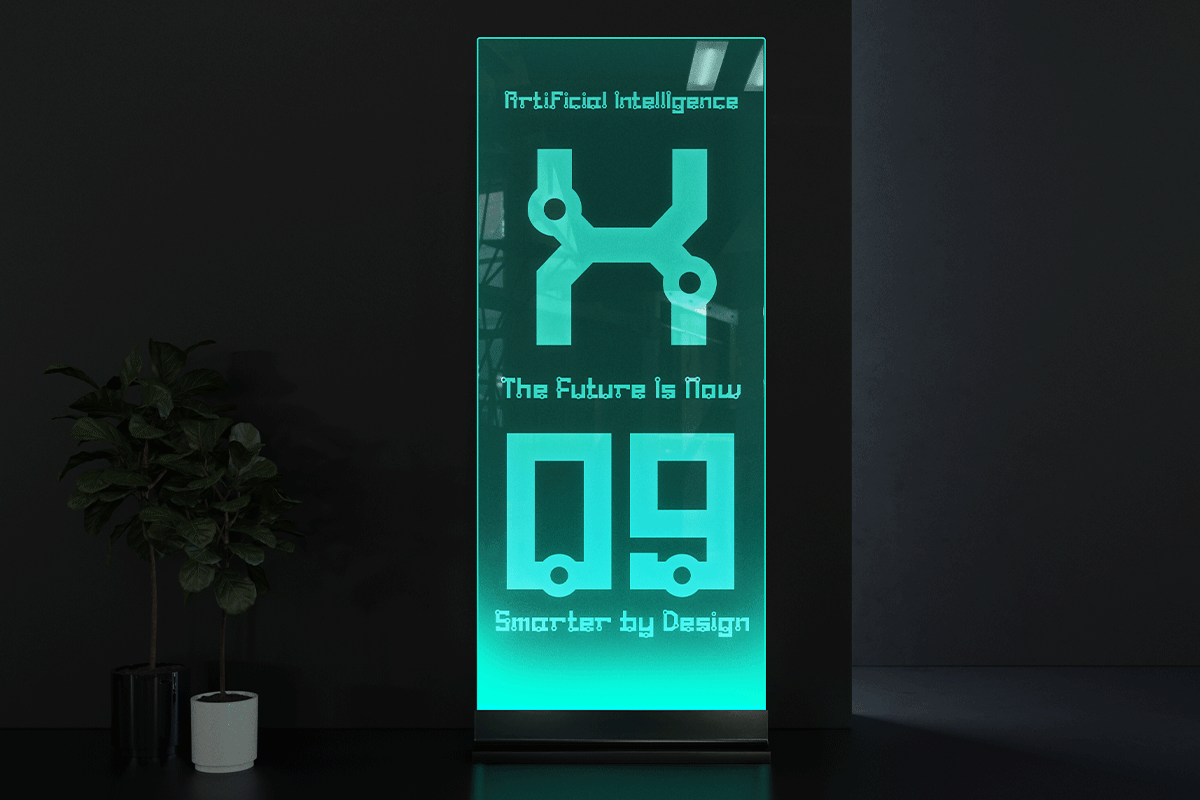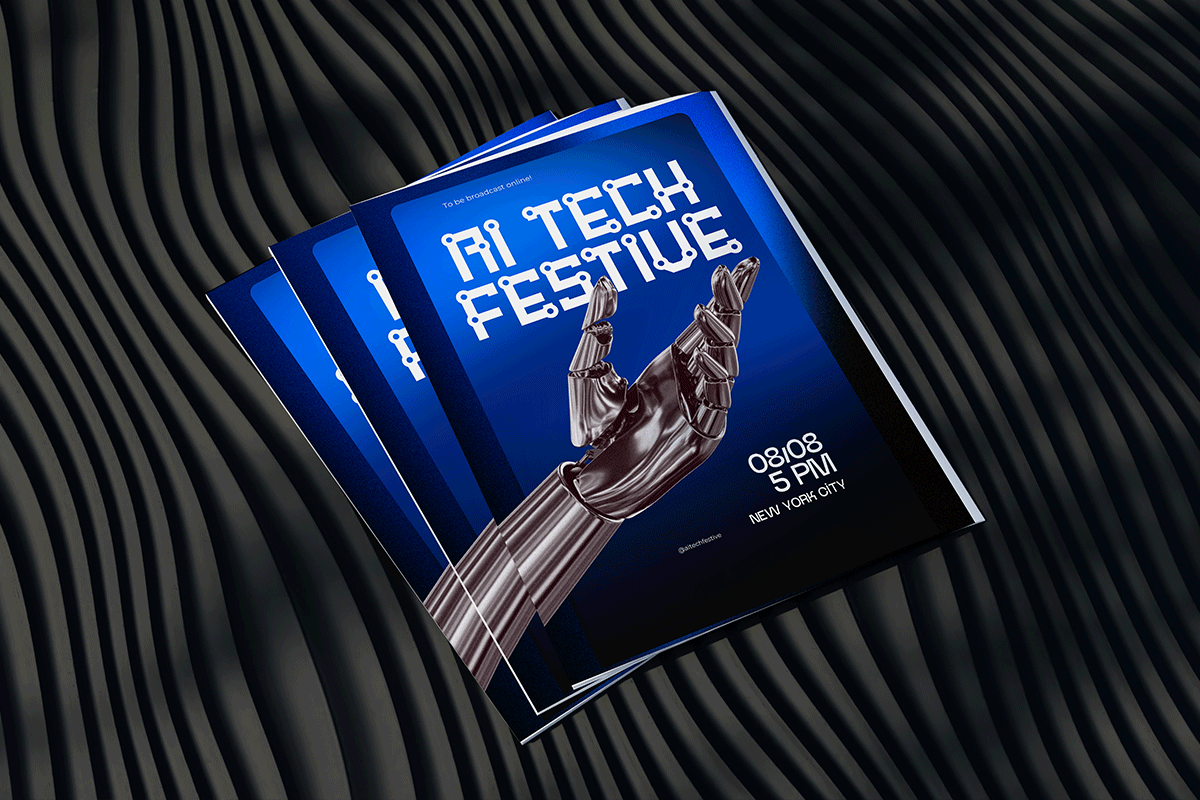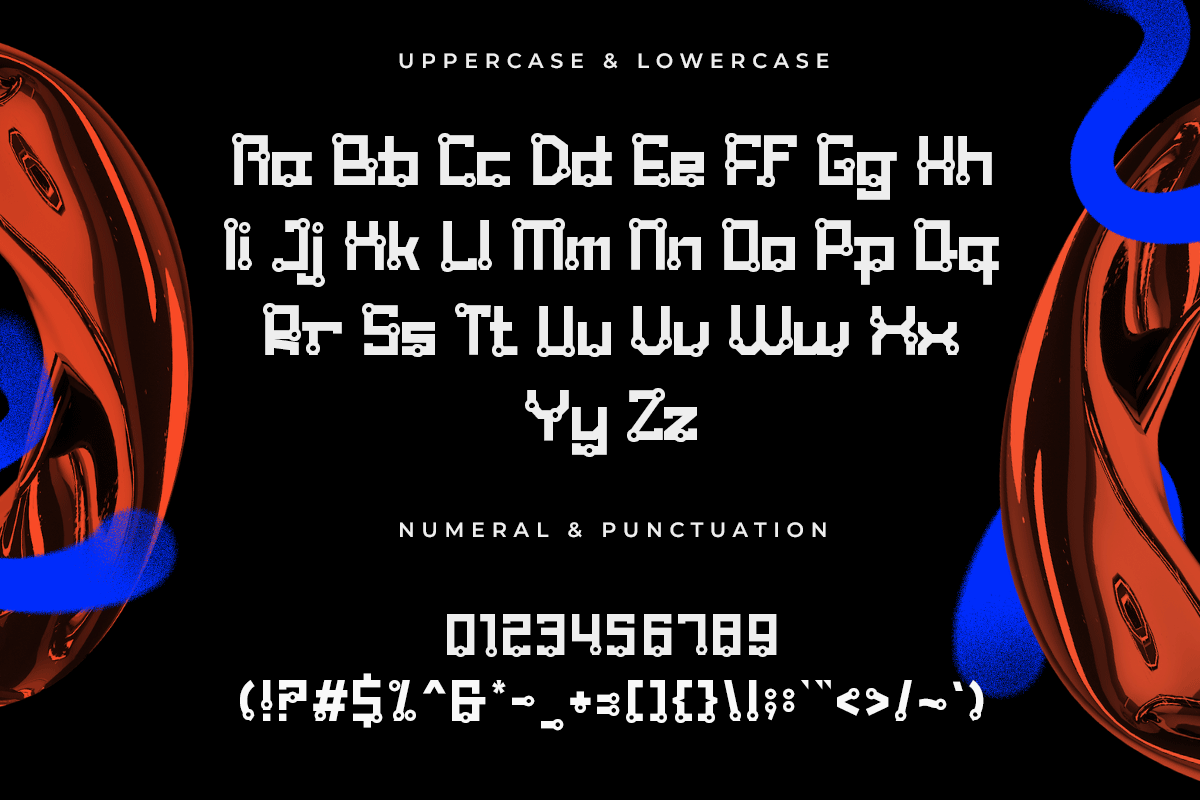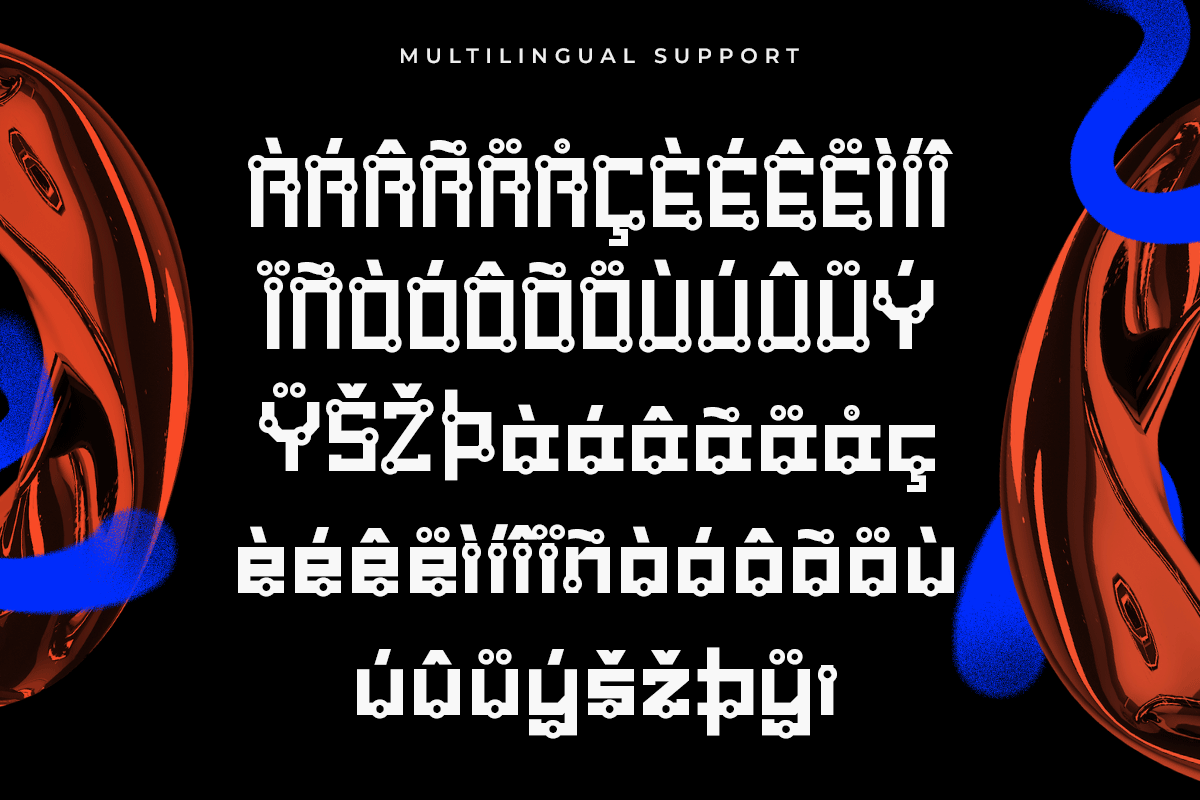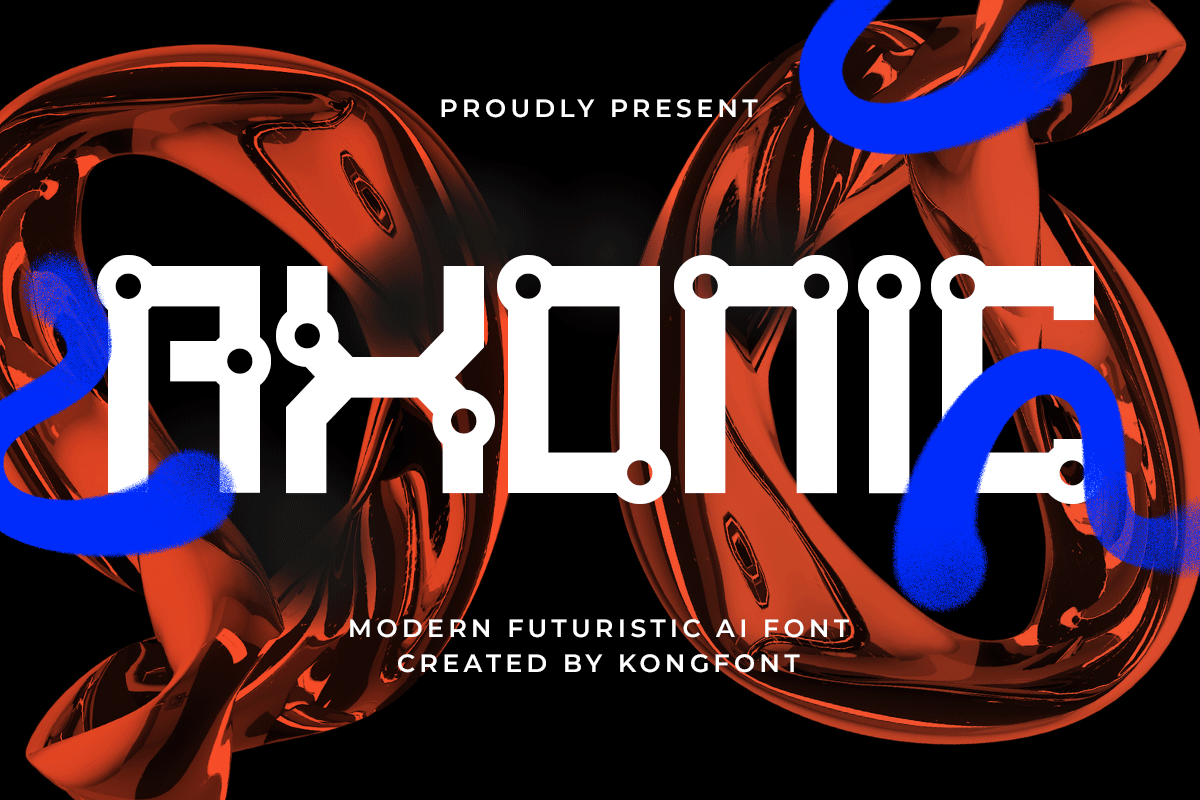
Axonic A Modern Display Futuristic AI Font is a bold futuristic display font inspired by artificial intelligence, advanced circuitry, and next-generation digital systems. Designed with geometric structures, connected nodes, and sleek technological details, this typeface delivers a powerful visual identity that feels innovative, intelligent, and ahead of its time.
Its unique letterforms combine cyber-inspired aesthetics with clean readability, making Axonic A Modern Display Futuristic AI Font ideal for brands, products, and creative projects that want to communicate innovation, technology, and the future.
Whether you're creating AI branding, sci-fi posters, tech startups, gaming titles, robotics interfaces, or futuristic UI concepts, Axonic A Modern Display Futuristic AI Font provides a strong and distinctive visual presence that captures attention instantly.